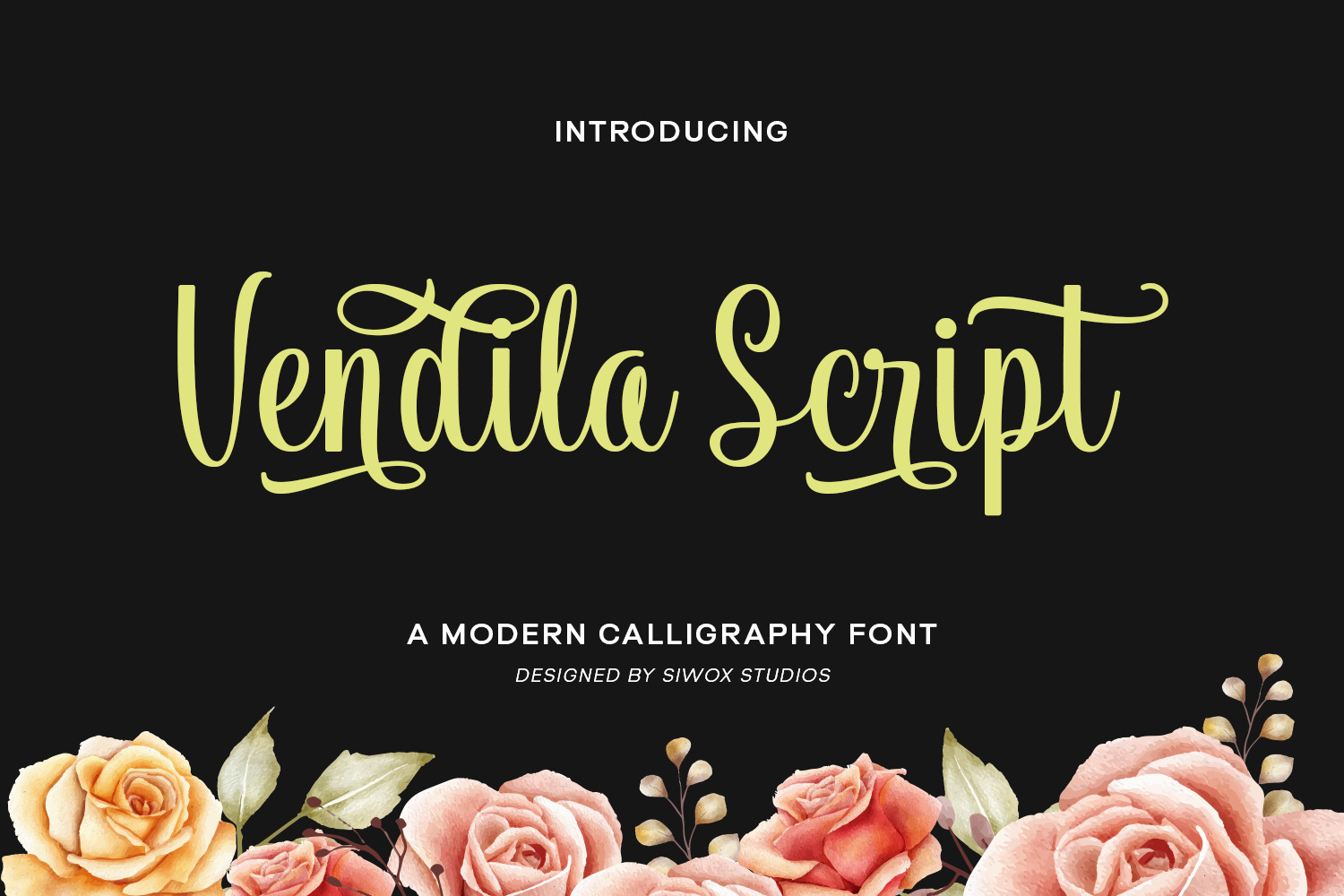
Vendila Script Font
Vendila Script is a modern calligraphy font that feels charming and elegant. It looks stunning on wedding invitations, thank you cards, quotes, greeting cards, logos, business cards, and other designs that require a handwritten touch. It is also PUA encoded which means you can access all the glyphs and swashes with ease!
The font allows you to play with a wide range of Uppercase and Lowercase Basic Characters, Numbers, and Punctuation - all aimed at supporting your creative flair. But that’s not all, Vendila Script takes its appeal even further by featuring specially crafted and stylish alternatives for the lowercase characters; a feature created to help you effortlessly reflect the elegance and natural flow of calligraphy into your designs.